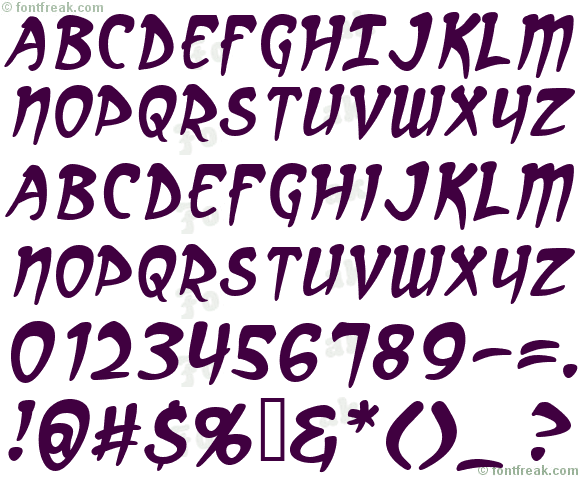
Arcanum Bold
Arcanum Italic
Arcanum
The Arcanum font by Blambot Fonts is a bold, decorative typeface that exudes an adventurous spirit. This unique font falls into the display category, making it ideal for eye-catching headlines and titles. Arcanum features a playful yet strong character, with thick stroke weights that create a commanding presence. The contrast between the heavier strokes and lighter curves adds a dynamic quality, while the slightly irregular shapes of the letters give it a whimsical touch. This font's spacing is well-balanced, ensuring legibility even at larger sizes, which enhances its versatility.
Arcanum is particularly suitable for a variety of creative projects. It shines in applications such as movie posters, where it can help convey dramatic themes. Additionally, it works wonderfully for book covers, especially in fantasy or adventure genres, allowing for an imaginative feel. Restaurant menus can also benefit from the font's boldness, drawing attention to the establishment's unique offerings. Furthermore, Arcanum is an excellent choice for event flyers, making sure that important information stands out.
The target audience for the Arcanum font includes graphic designers, content creators, and small business owners who seek to make a strong visual impact. Its distinctive style can elevate any design project, whether digital or print.
What sets the Arcanum font apart is its combination of boldness and whimsy, making it a versatile asset for anyone looking to add character to their work. With its freeware license, users can easily access the Arcanum font free download, allowing for endless creative possibilities without the constraints of licensing fees. This font is not just a typeface; it's a statement, perfect for those who dare to be different.